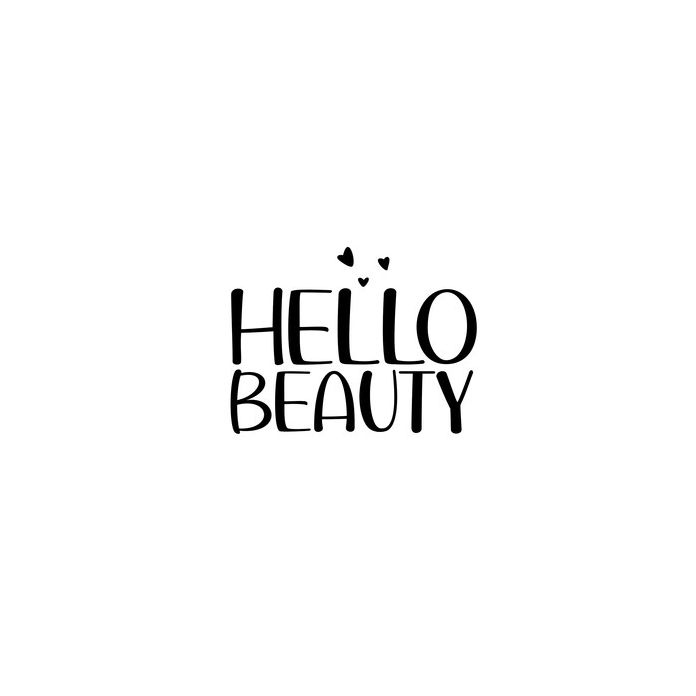
Hello Beauty script font that stands firm. The model is so beautiful Lovely, making it very suitable for your classy collection of designs. you can modify it according to your taste!